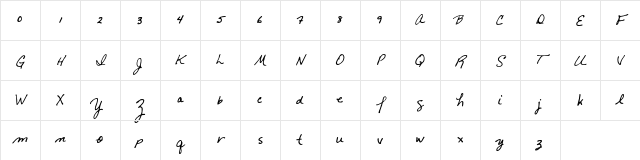
Complete FG Cindywrite Regular glyph index. Displaying only characters natively supported by FG Cindywrite Regular font.
FG Cindywrite is a composed and adaptable typeface that performs quietly and consistently across a wide range of design contexts.